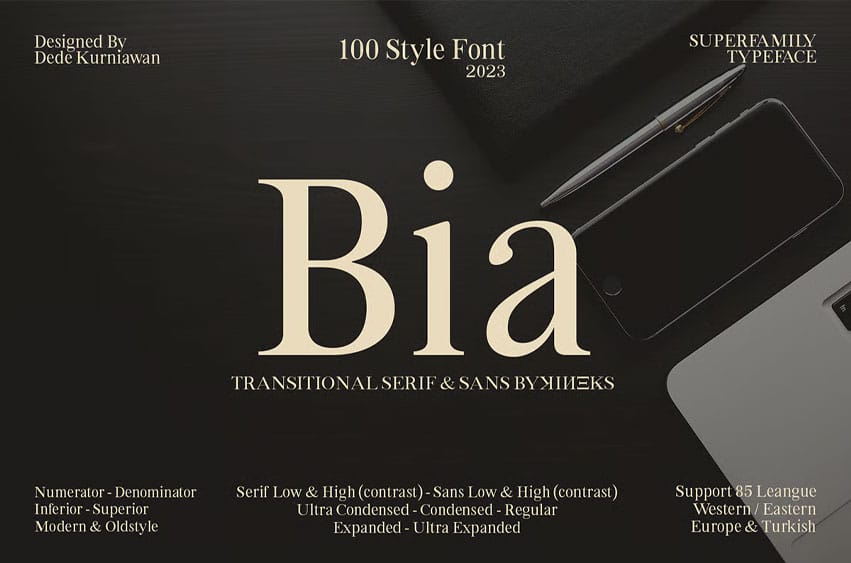
Bia Font is a versatile transitional serif and sans typeface family with 100 styles, designed for maximum flexibility across branding, editorial, digital, and print projects. Its refined balance of low and high contrast styles—both in serif and sans—gives designers the freedom to craft timeless, elegant, and highly legible typography.
With support for 85 languages across Western and Eastern Europe, plus Turkish, Bia is a truly global font solution. The family also includes advanced OpenType features such as numerators, denominators, inferiors, superiors, modern and old-style figures, ensuring full typographic control.
- 100 font styles (serif & sans, low & high contrast, ultra-condensed to ultra-expanded)
- Transitional serif + sans design for maximum versatility
- 85 language support (Western/Eastern Europe & Turkish)
- Advanced OpenType features: numerator, denominator, inferior, superior, modern & old-style figures
- Optimized for print and digital use
Bia Superfamily is a transitional serif & sans typeface with 100 styles, covering 85 languages. Featuring advanced OpenType functions and contrast-rich designs, it’s perfect for luxury branding, editorials, signage, and digital platforms.